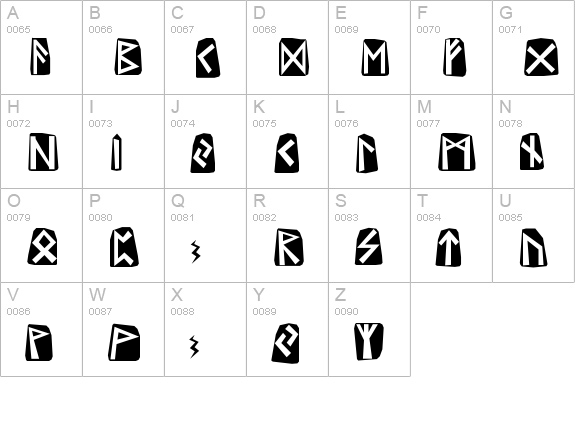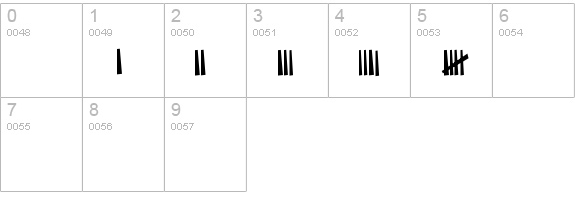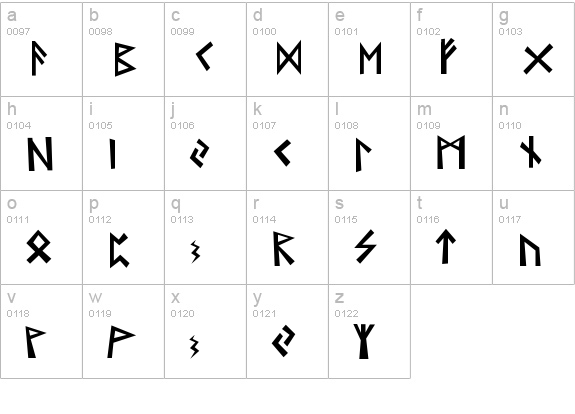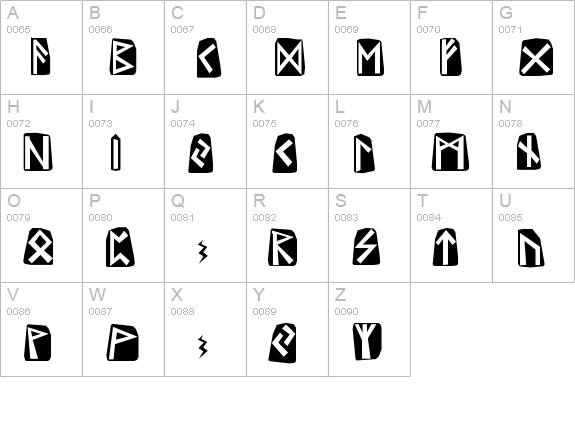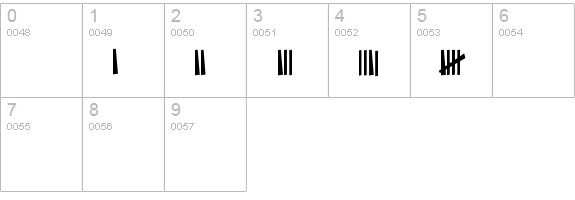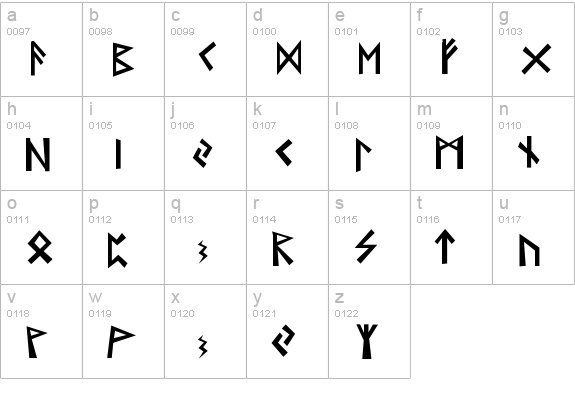
Runes Font Details
The Runes font is a captivating and mystical typeface inspired by ancient runic symbols. Its intricate design adds a touch of historical charm to any project, making it perfect for fantasy-themed works, historical reenactments, or mystical branding. This unique font features bold, angular strokes that give it a bold and authoritative appearance, making it stand out in any design. Best of all, the Runes font is available for free download at FontsMarket.com. Whether you're a designer looking to add a touch of ancient magic to your creations or just someone who appreciates the artistry of typography, the Runes font is a must-have addition to your collection. Download it today and unlock the power of these ancient symbols in your designs.